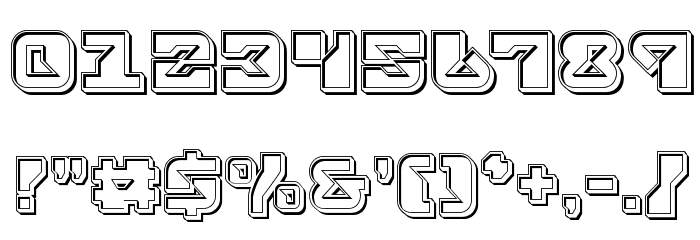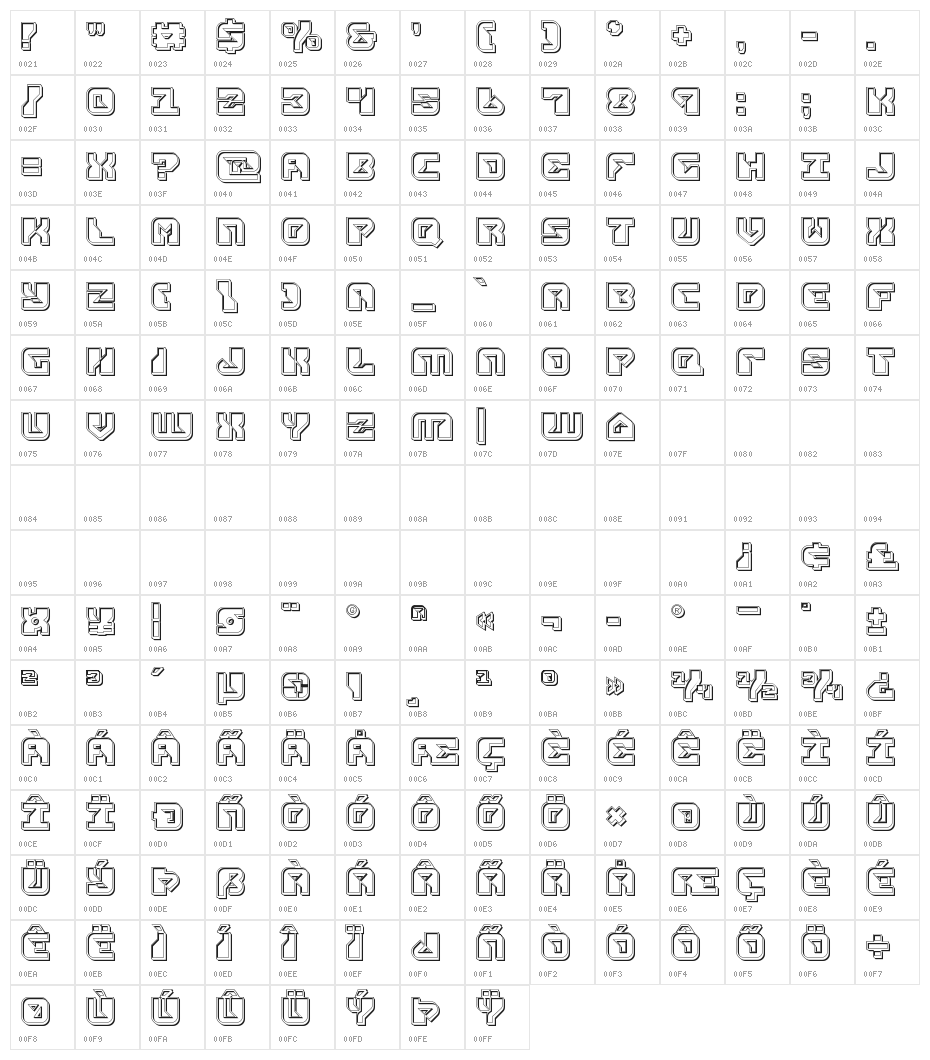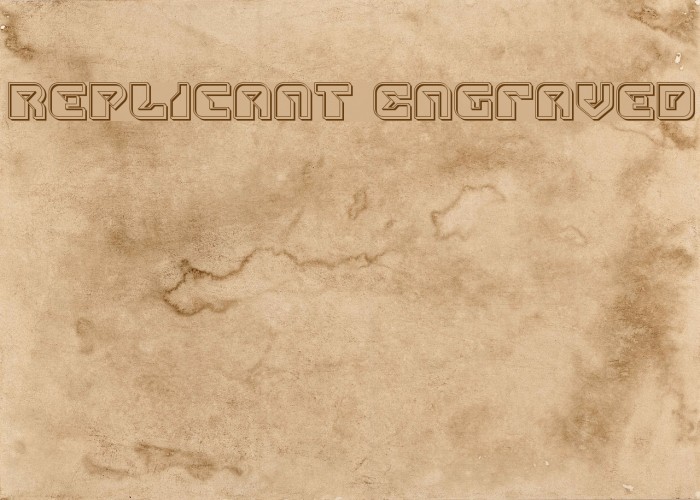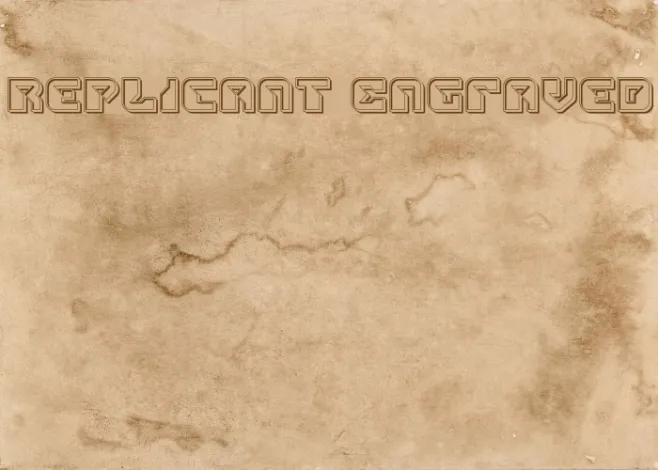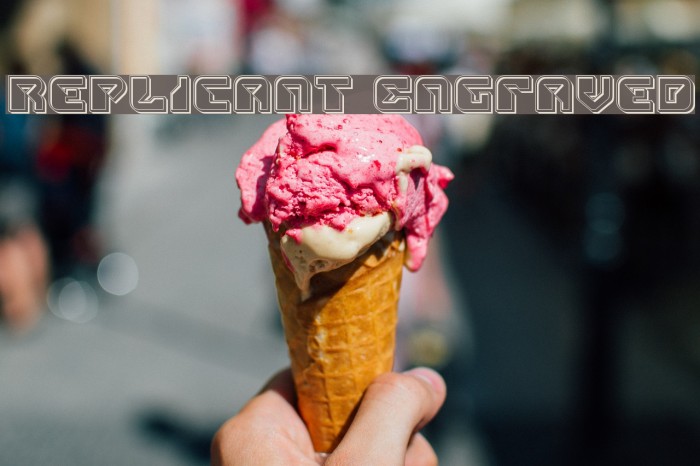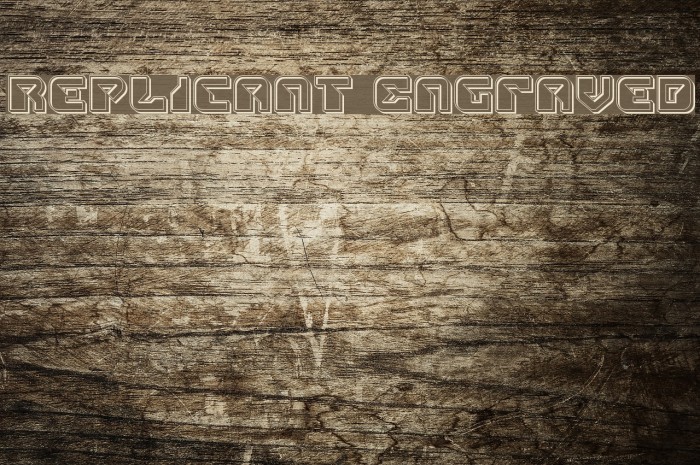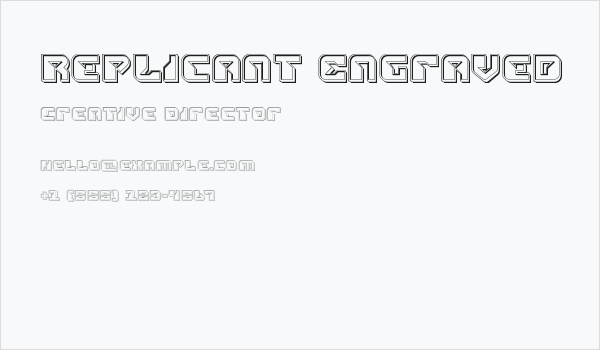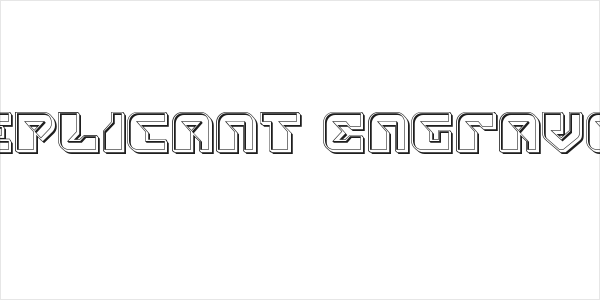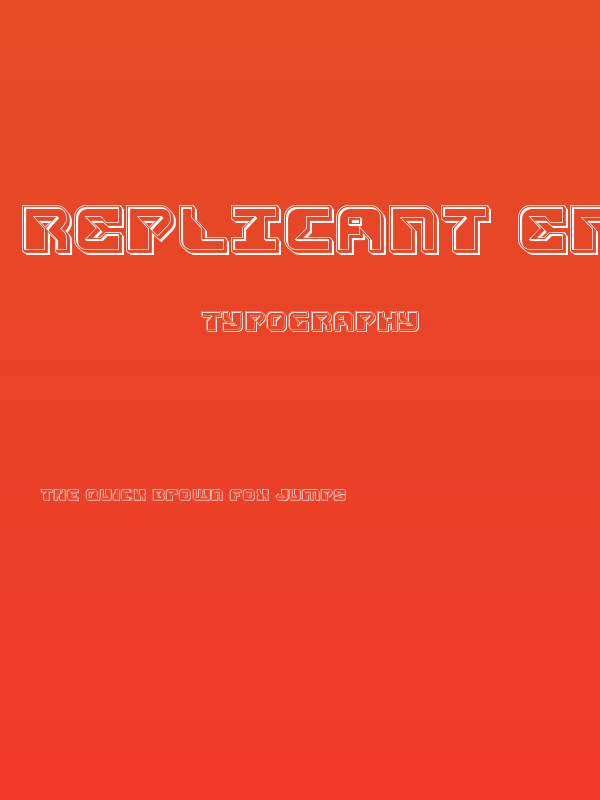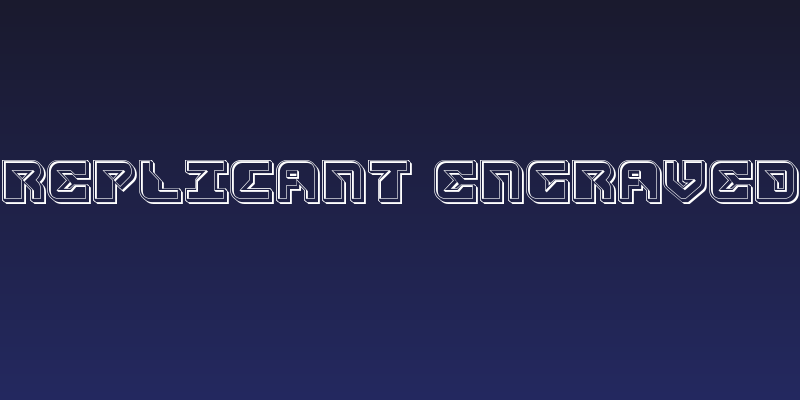
Replicant Engraved Font
Replicant Engraved Description
This font features a bold, futuristic design with a distinctive engraved effect. Each character is outlined with a double line, creating a three-dimensional appearance that stands out. The geometric shapes and sharp angles give it a modern and tech-inspired look. The uppercase and lowercase letters maintain a consistent style, with the numbers and special characters following the same design principles. The font's unique style makes it ideal for projects that require a strong visual impact.
| Proposed Projects | Ideal for sci-fi themed designs, technology branding, video game titles, and futuristic posters. |